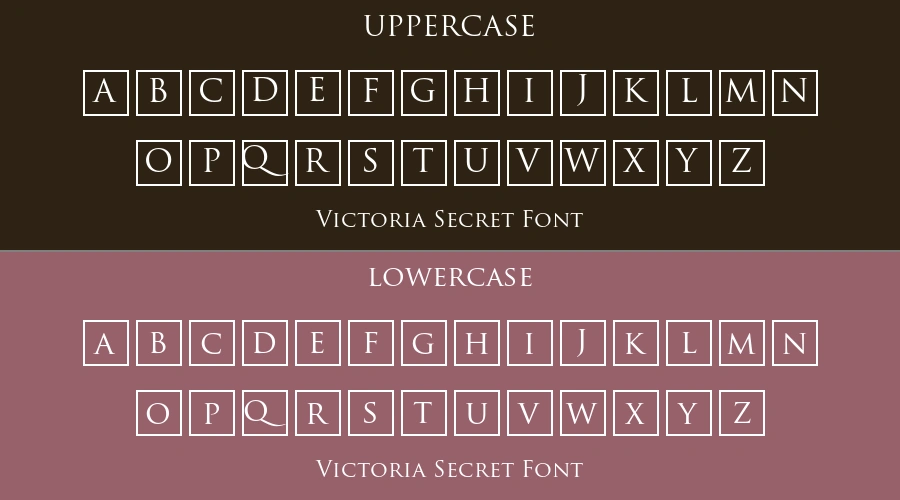
About Victoria Secret Font
When typographic excellence matters most, Victoria Secret Font delivers through its thoughtful blend of distinctive terminals and refinement. Specially crafted for marketing materials, it offers the authenticity and aesthetic excellence required for sophisticated design work. Every detail serves a purpose.
The character set showcases thoughtful details like fluid connections alongside functional contextual ligatures. This proves especially valuable in artistic statements, where brand recognition directly influences results. Particular attention was paid to terminal style and personality during development.